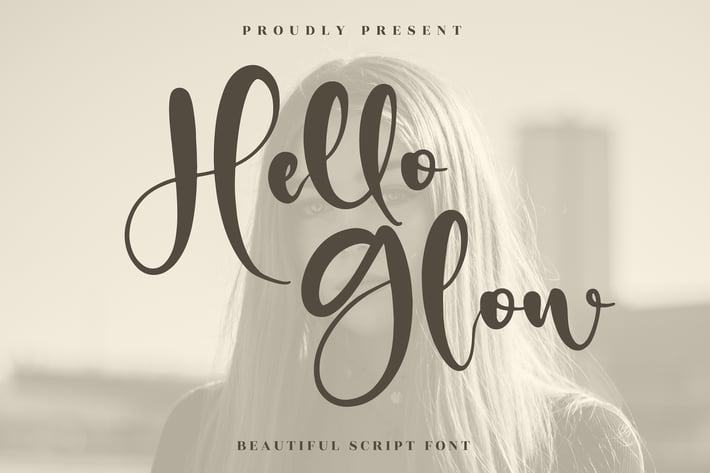
Hello Glow Script Font
Hello Glow is a warm, modern brush script with bouncy curves, lush loops, and a soft hand-painted feel. It adds instant elegance to logos, packaging, social quotes, and wedding stationery—clean enough to read at small sizes, stylish enough to headline.
+ Uppercase & lowercase letters with smooth, flowing strokes
+ Natural bouncy baseline for an organic handwritten look
+ Standard ligatures + stylistic alternates (OpenType)
+ Full numerals & punctuation, proper kerning
+ Signature & boutique logos
+ Beauty / skincare / wellness branding
+ Instagram & Pinterest quotes and posts
+ Wedding invitations, save-the-dates, place cards
+ Packaging & product labels
+ Blog / editorial titles & banners
+ Printed merch & greeting cards
Let every headline glow.